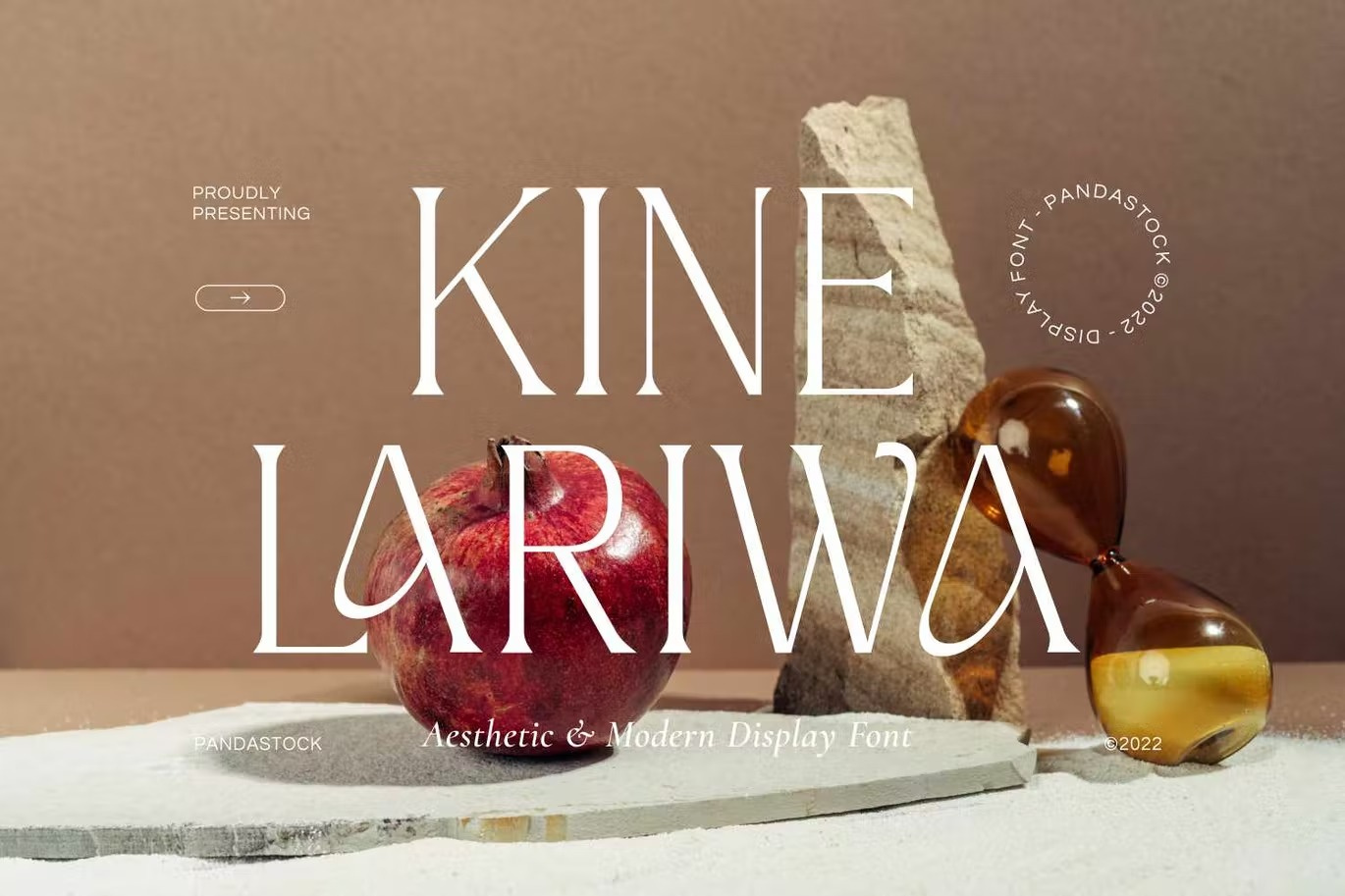
Free Kine Lariwa Display Font
Kine Lariwa is old style font with visual elegance, smooth curves and beautiful ligatures clear, making your work look true and attractive.